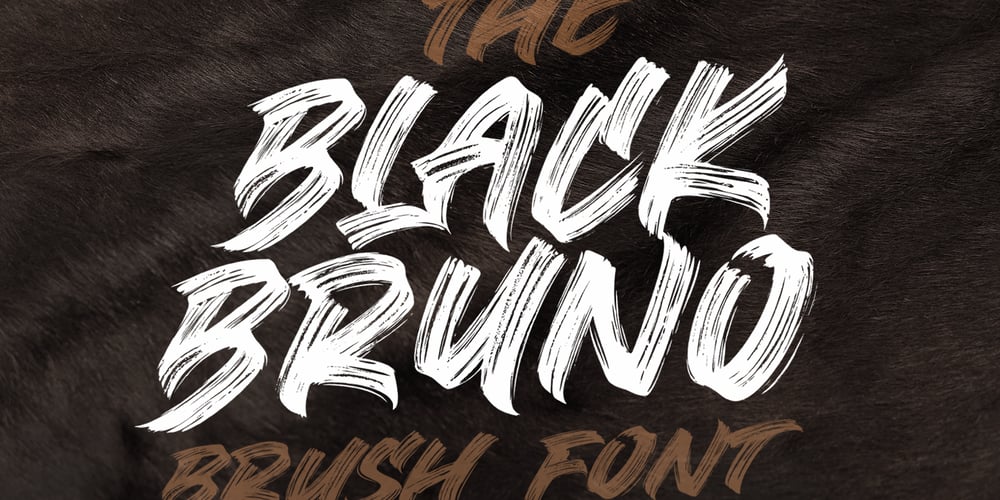
Black Bruno
Black Bruno font
Black Bruno Font Family was designed by Rangga Subekti and published by Subectype. Black Bruno contains 2 styles and family package options. Black Bruno is a supercharged, street-wise brush font bursting with energy. It includes extra attention to quick strokes and sharp details. This font is perfect for challenging jobs, titles, t-shirts, websites, hoodies, clothing, headline, logotype, branding, advertising, event and various print and digital media with energy.